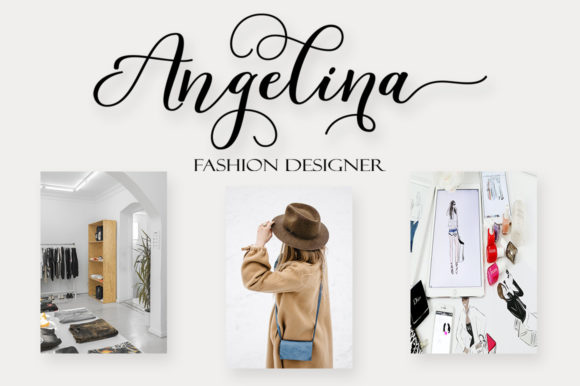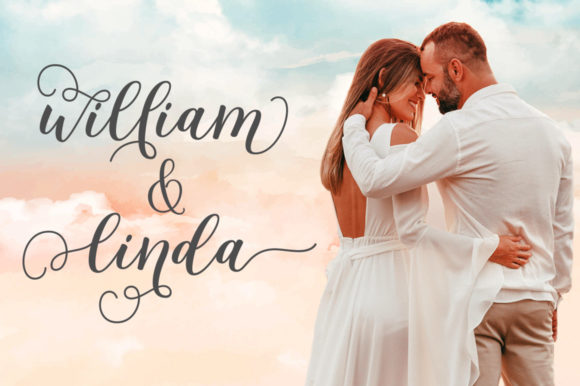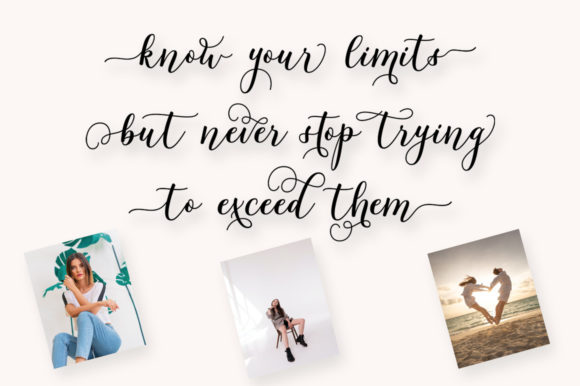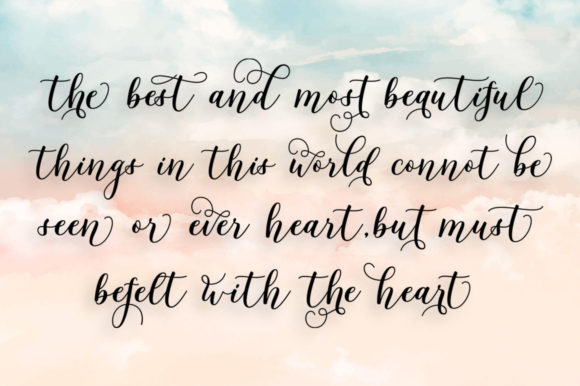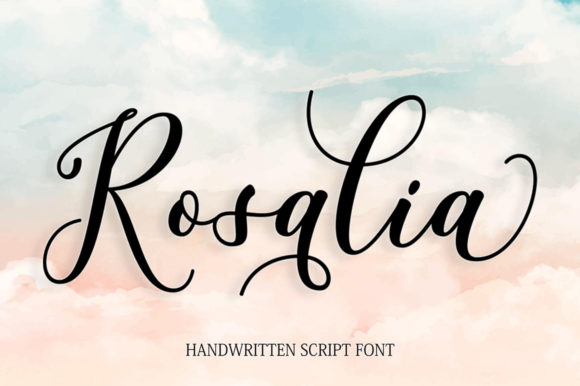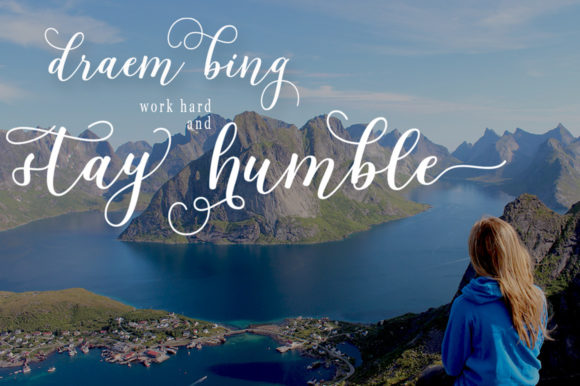
Introducing Delimora Script Font: The Perfect Handmade Calligraphy Style for Your Creative Projects
Are you a designer or crafter looking for a fresh and modern script font to elevate your creative projects? Look no further than Delimora Script Font! This beautiful font features a handmade calligraphy style, decorative characters, and a dancing baseline that will add a touch of elegance and sophistication to any design.
What is Delimora Script Font?
Delimora Script Font is a modern script font that is inspired by traditional calligraphy. It features a fresh and elegant design, with a handmade feel that gives it a unique and personal touch. The font is perfect for a variety of creative projects, including invitations, greeting cards, branding materials, business cards, quotes, posters, and more.
Key Features of Delimora Script Font
- Handmade Calligraphy Style: Delimora Script Font features a beautiful handmade calligraphy style that gives it a unique and personal touch.
- Decorative Characters: The font includes a range of decorative characters, including swashes, flourishes, and ligatures, that can be used to add extra flair to your designs.
- Dancing Baseline: The font features a dancing baseline, which gives it a sense of movement and energy.
- Modern and Fresh Design: Delimora Script Font has a modern and fresh design that is perfect for creative projects that require a contemporary look and feel.
Uses for Delimora Script Font
Delimora Script Font is a versatile font that can be used for a wide range of creative projects, including:
- Invitations: Use Delimora Script Font to create beautiful and elegant invitations for weddings, parties, and other special occasions.
- Greeting Cards: The font is perfect for creating greeting cards for birthdays, holidays, and other special occasions.
- Branding Materials: Use Delimora Script Font to create branding materials, such as logos, business cards, and letterheads, that reflect your company’s personality and style.
- Quotes and Posters: The font is great for creating inspirational quotes and posters that require a elegant and sophisticated look and feel.
Why Choose Delimora Script Font?
There are many reasons why you should choose Delimora Script Font for your creative projects. Here are just a few:
- Unique and Personal Touch: Delimora Script Font has a unique and personal touch that will set your designs apart from others.
- Elegant and Sophisticated: The font has an elegant and sophisticated look and feel that is perfect for creative projects that require a high level of professionalism.
- Versatile: Delimora Script Font is a versatile font that can be used for a wide range of creative projects.
Tips for Using Delimora Script Font
Here are a few tips for using Delimora Script Font in your creative projects:
- Use it Sparingly: Delimora Script Font is a elegant and sophisticated font, so use it sparingly to avoid overwhelming your design.
- Pair it with Other Fonts: The font pairs well with other fonts, such as sans serif fonts, so don’t be afraid to experiment with different font combinations.
- Experiment with Different Sizes: Delimora Script Font looks great in a variety of sizes, so experiment with different sizes to find the one that works best for your design.
Delimora Script Font is a beautiful and elegant font that is perfect for creative projects that require a handmade calligraphy style, decorative characters, and a dancing baseline. With its unique and personal touch, elegant and sophisticated look and feel, and versatility, Delimora Script Font is a great choice for designers and crafters who want to add a touch of elegance and sophistication to their designs.